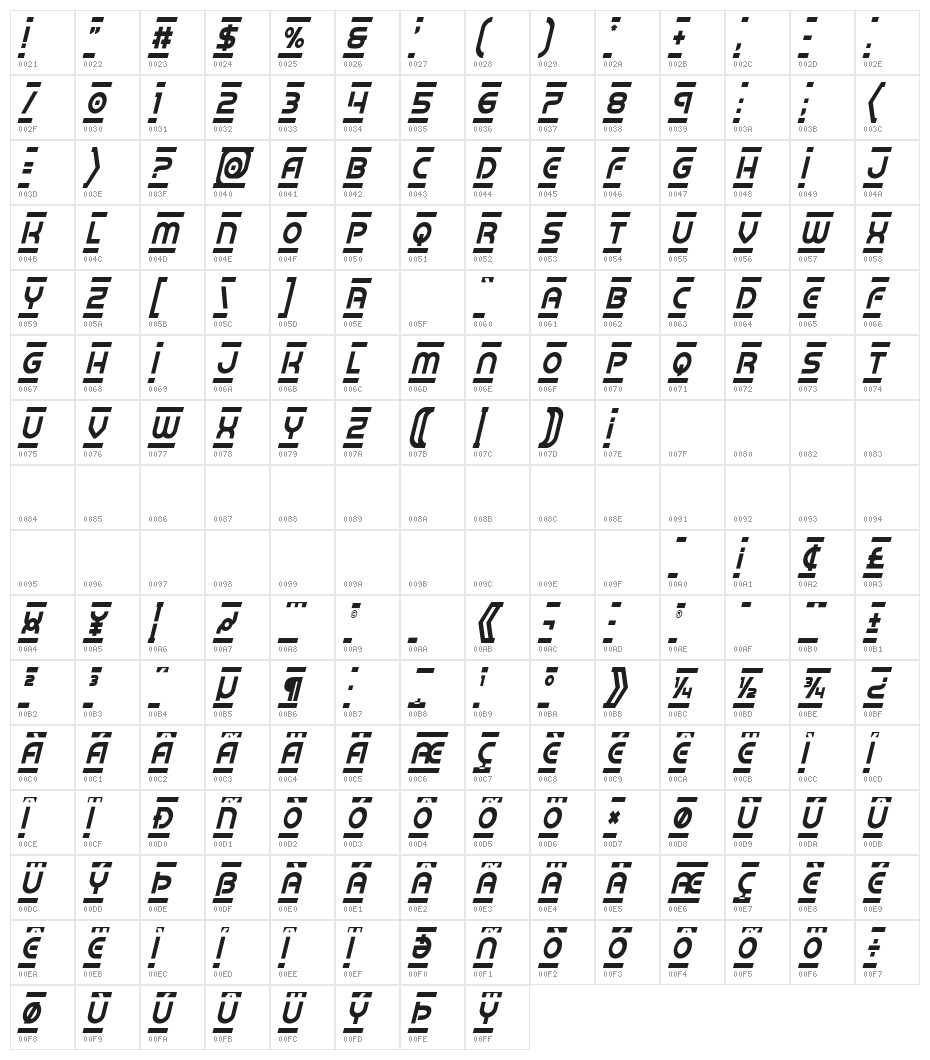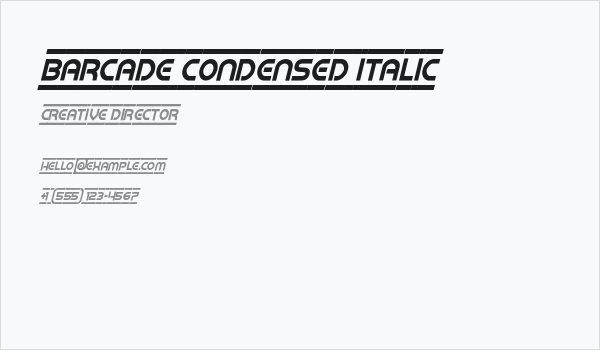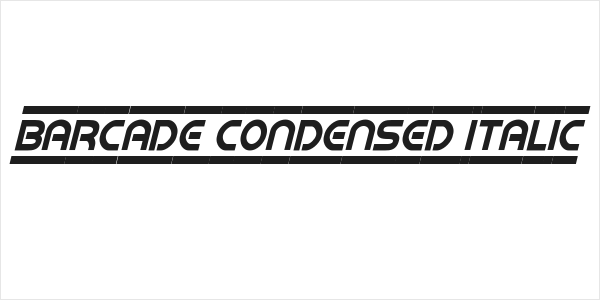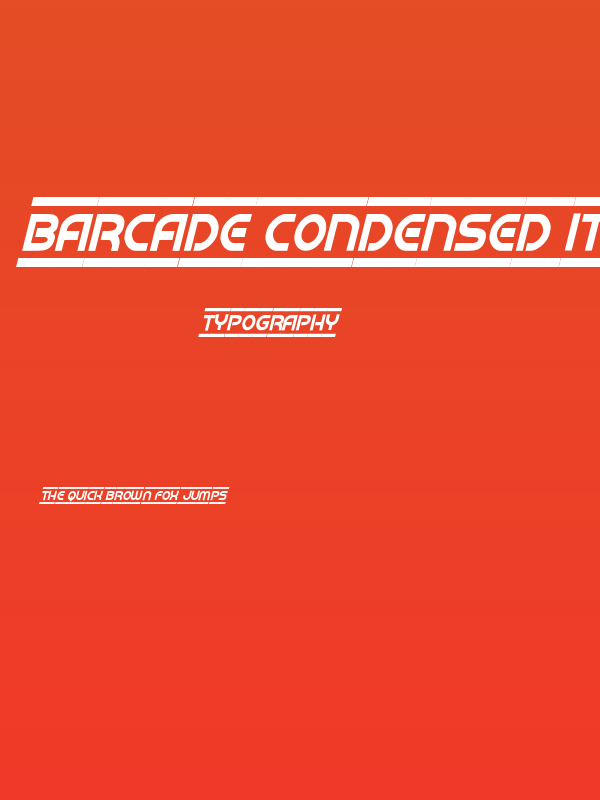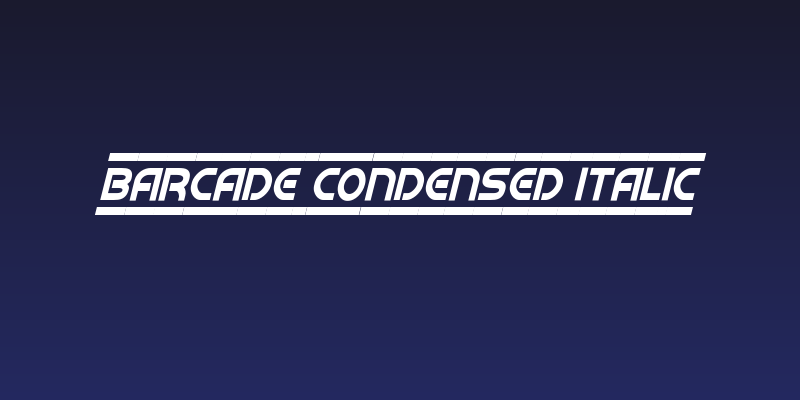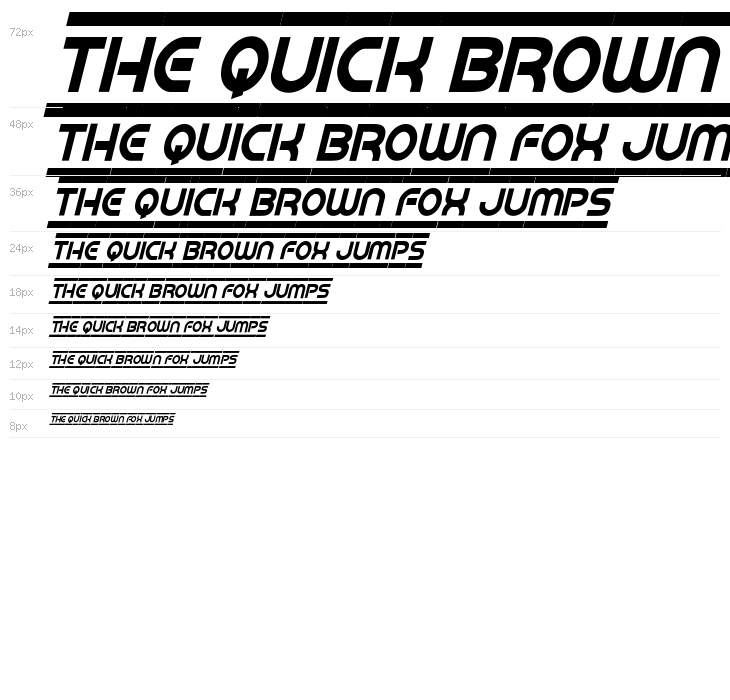
Barcade Condensed Italic Font
Barcade Condensed Italic Description
This font features a bold, condensed style with a distinct italic slant, giving it a dynamic and energetic appearance. The characters are tightly spaced, enhancing its compact look. The strokes are thick and consistent, providing a strong visual impact. The design is modern and sleek, with a futuristic vibe that makes it suitable for attention-grabbing headlines or branding. The uppercase and lowercase letters maintain a uniform style, while the numerals and special characters complement the overall aesthetic. This font is ideal for projects that require a bold statement and a contemporary feel.